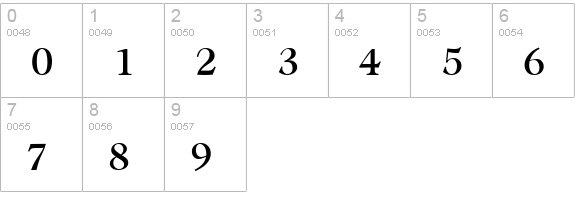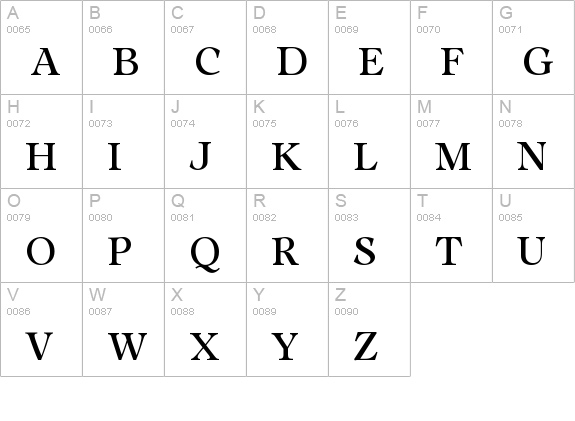
AdroitURWTMed Font Details
AdroitURWTMed is a versatile and stylish font that combines sophistication with a touch of playfulness. Its sleek lines and elegant curves make it suitable for a wide range of design projects, from branding to editorial layouts. The clarity and readability of AdroitURWTMed make it a standout choice for both print and digital applications. Best of all, AdroitURWTMed is available for free download at FontsMarket.com. This means you can enjoy the beauty and functionality of this font without any cost. Whether you're a designer looking to add a new font to your collection or a business owner seeking a fresh look for your brand, AdroitURWTMed is the perfect choice. Download it today and elevate your design projects with this exceptional font.